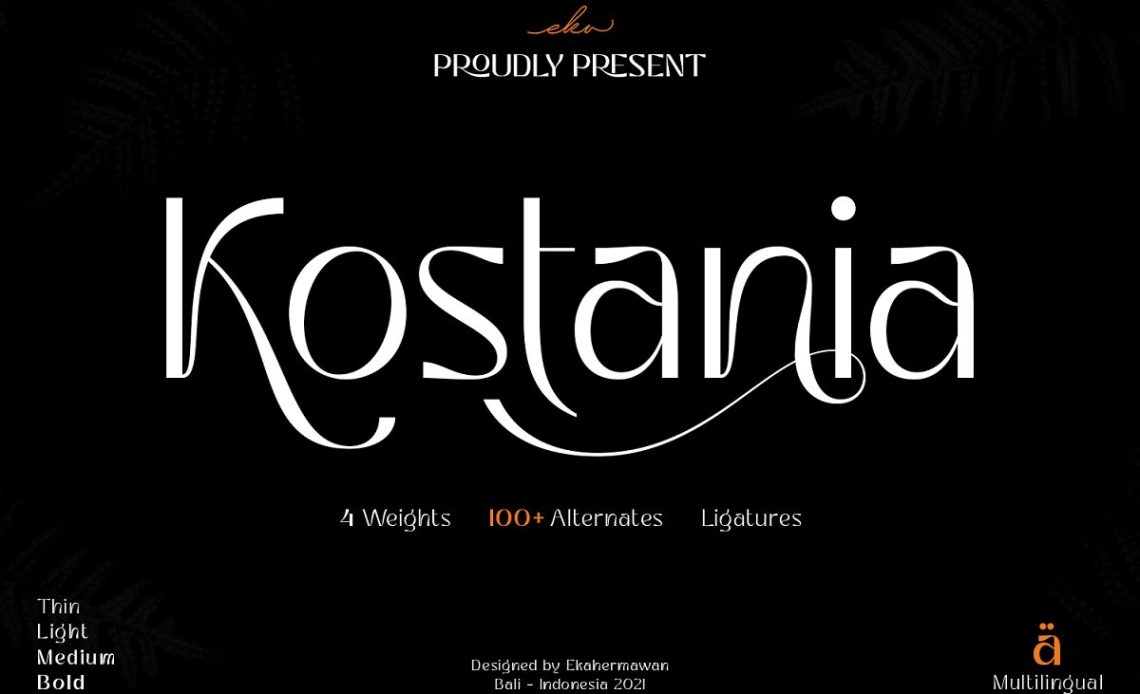
Introducing Kostania - The Unique Display Font that will take your designs to new heights! Created by the talented Eka Hermawan, this elegant font is perfect for any display use and will make your designs stand out from the crowd.
With 4 weights ranging from Thin to Bold, Kostania offers endless possibilities for your creative projects. Whether you're designing a captivating logo, eye-catching branding, stunning posters, captivating magazines, stylish labels, or even impressive merchandise, Kostania has got you covered.
What sets Kostania apart from other fonts is its extensive collection of alternates and ligatures characters. These unique characters allow you to experiment and create awe-inspiring typographic designs that are sure to leave a lasting impression. Say goodbye to boring and predictable fonts, and say hello to a world of creativity!
Not only is Kostania visually stunning, but it's also incredibly easy to use. With OpenType support, you can seamlessly access ligatures and alternates options, making your design process a breeze. Plus, the font offers multilingual support, so you can reach a global audience with ease.